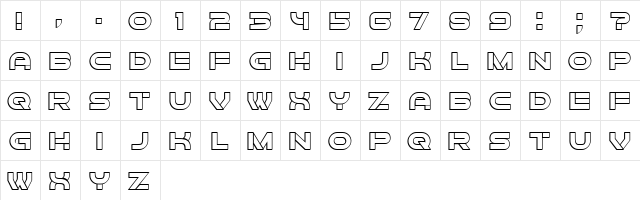
Forvertz 3D Regular
Design Context for Forvertz 3D Typeface
Forvertz 3D is a composed and adaptable typeface that performs quietly and consistently across a wide range of design contexts.